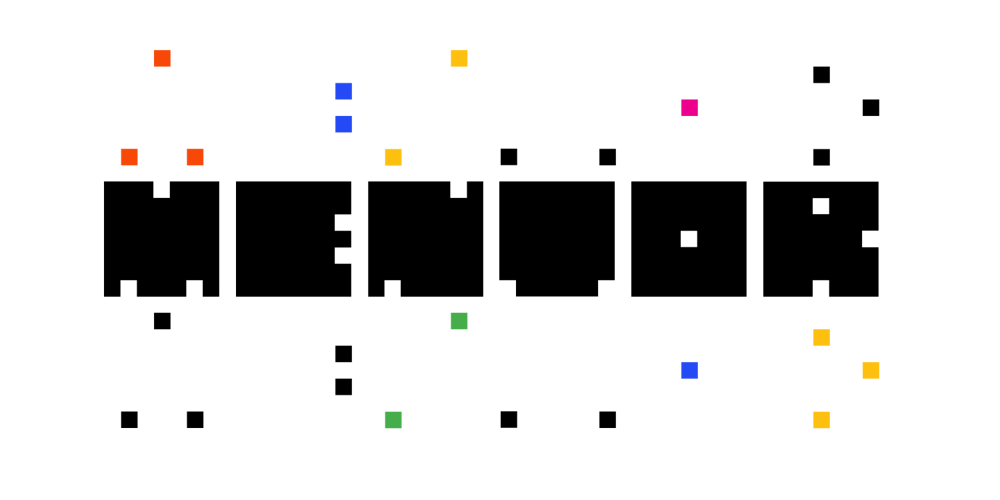
Mentor
Mentor font
Mentor Font Family was designed by Finn Sködt and published by Ultramarin. Mentor contains 1 styles and family package options. Mentor is a font made for professor Bruno K. Wiese 85th birthday. I made it especially for the birthday card I sent him as friendly comment to his always present ideas on clarity, purity, exactness and “less is more”. He taught us the importance of carefully managing the spaces between elements in typography.